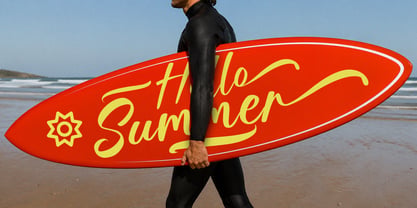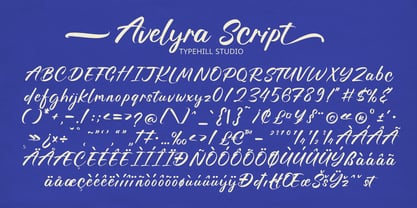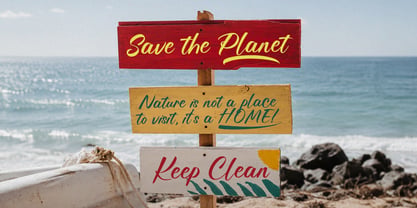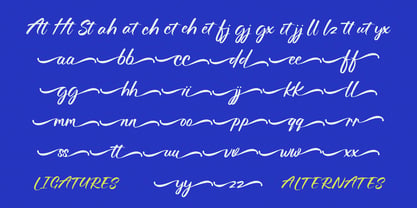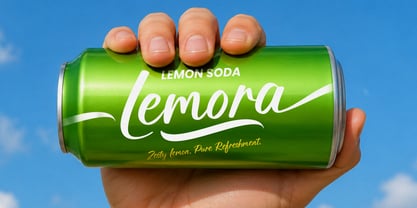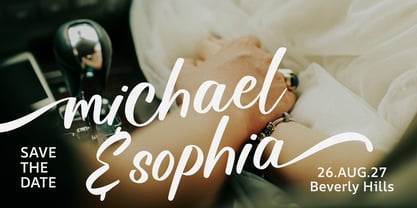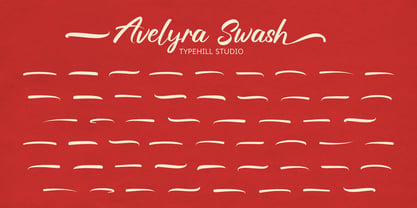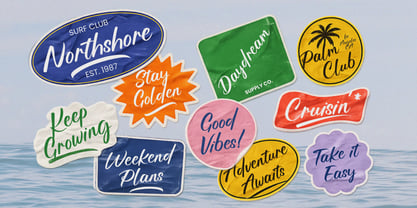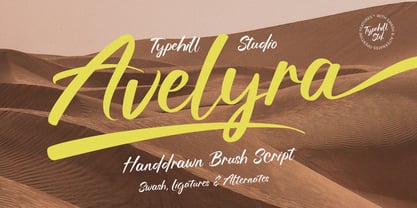
Avelyra Script
von Typehill Studio
Die Schriftfamilie Avelyra Script wurde von Teuku Fahruddin entworfen und von Typehill Studio veröffentlicht. Avelyra Script enthält 2 Stile und Familienpaketoptionen. Mehr über diese Familie
Avelyra is a beautifully handcrafted brush script font that captures the natural energy of hand-painted lettering with a refined modern touch. Featuring smooth flowing strokes, expressive curves, and authentic brush textures, Avelyra brings warmth, personality, and elegance to every design.
Designed to stand out while remaining highly versatile, Avelyra includes a rich collection of swashes, ligatures, and alternate characters that allow you to create stunning custom typography with ease. Whether you're crafting a memorable logo, stylish branding, product packaging, social media content, posters, apparel designs, or wedding stationery, Avelyra delivers a distinctive handwritten charm that feels both professional and personal.
Its dynamic letterforms and natural rhythm make every word feel unique, helping your designs leave a lasting impression with effortless sophistication.
Designer: Teuku Fahruddin
Foundry: Typehill Studio